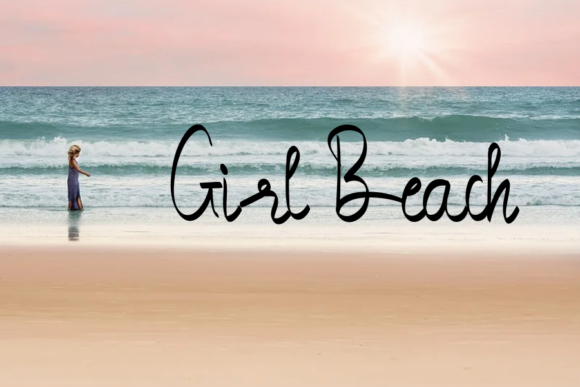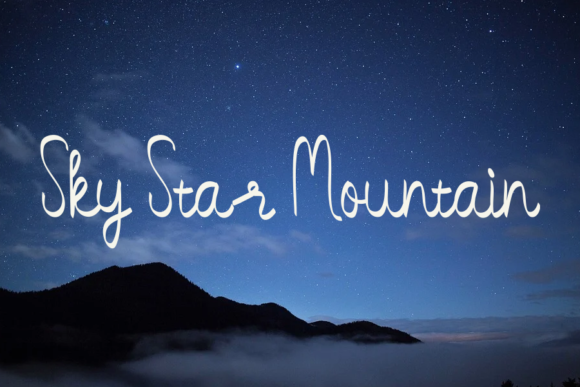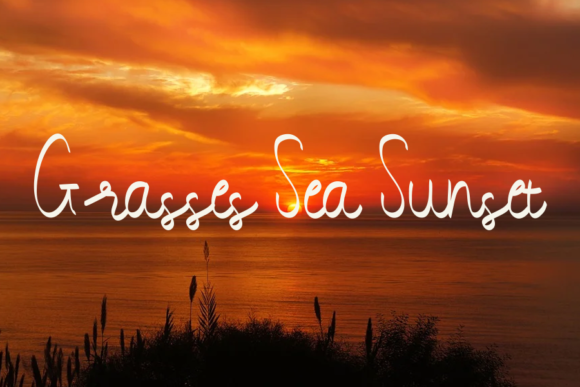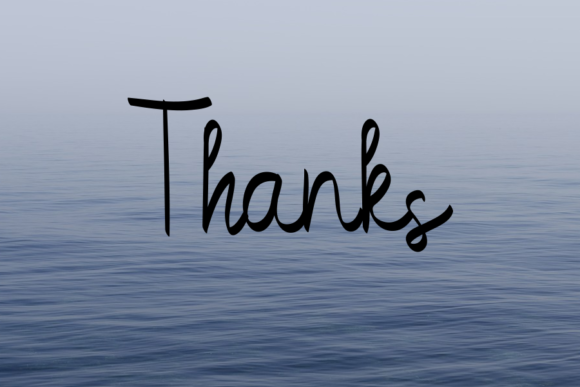
About Blue Sky Font
Blue Sky is a charming handwritten font that exudes simplicity and elegance. With its neat and well-crafted characters, this font offers a clean and easily readable effect that makes it perfect for a wide range of design projects.
One of the key strengths of Blue Sky is its versatility. It can be seamlessly incorporated into various design elements, such as logos, watermarks, invitations, cards, social media graphics, and more. The font’s clean and legible style ensures that your message comes across clearly and effectively, allowing your design to make a strong impact.
The simplicity of Blue Sky adds a touch of understated beauty to your designs. Its clean lines and balanced proportions create a sense of harmony and refinement. Whether you’re designing a professional logo, elegant wedding invitation, or stylish social media post, Blue Sky will bring a touch of sophistication and grace to your work.
The readability of Blue Sky is one of its standout features. Each character is carefully designed to be easily distinguishable, ensuring that your audience can effortlessly read and comprehend your message. Whether it’s a short phrase or a longer piece of text, Blue Sky ensures clarity and legibility, making it suitable for various design applications.
Blue Sky is a font that combines elegance with simplicity, making it an excellent choice for both professional and personal projects. Its versatility allows it to adapt to different design styles and themes, while its neat characters maintain a consistent and polished look. Whether you’re creating branding materials, event invitations, or social media graphics, Blue Sky is a reliable and visually appealing option.
In summary, Blue Sky is a lovely handwritten font with neat characters that offer an easily readable effect. Its versatility makes it suitable for various design projects, including logos, watermarks, invitations, cards, and social media graphics. The font’s simplicity and elegance add a touch of sophistication to your designs, while ensuring optimal readability. Consider using Blue Sky to bring a clean and refined aesthetic to your next creative endeavor.